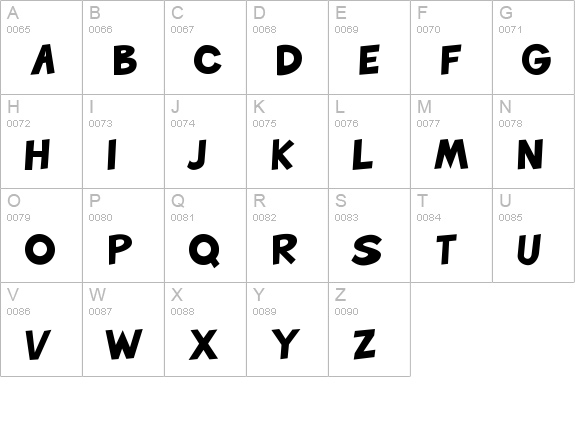
HeyType Font Details
Introducing HeyType font, a versatile and modern typeface designed to elevate your creative projects to the next level. With its clean lines and sleek appearance, HeyType is perfect for a wide range of design applications, from branding to editorial design and everything in between. This stylish font exudes sophistication and professionalism, making it a great choice for any project that requires a touch of elegance. What sets HeyType font apart is not only its aesthetic appeal but also its accessibility. Yes, you read that right - HeyType is completely free to download at FontsMarket.com! Now you can enhance your designs with this premium-quality font without breaking the bank. Whether you're a seasoned designer or just starting out, HeyType is sure to become a valuable addition to your font collection. So why wait? Give your projects the stylish edge they deserve with HeyType font - download it for free today at FontsMarket.com and watch your designs come to life!